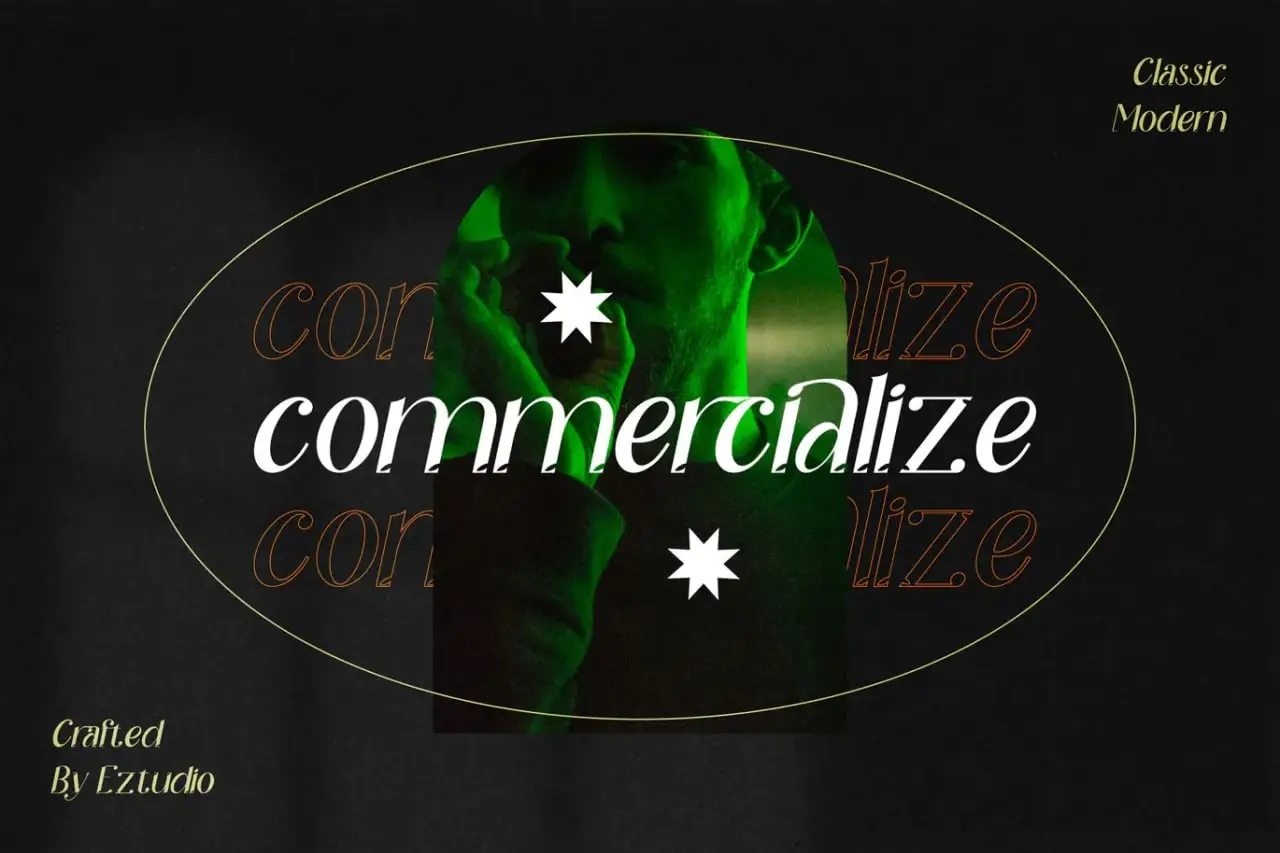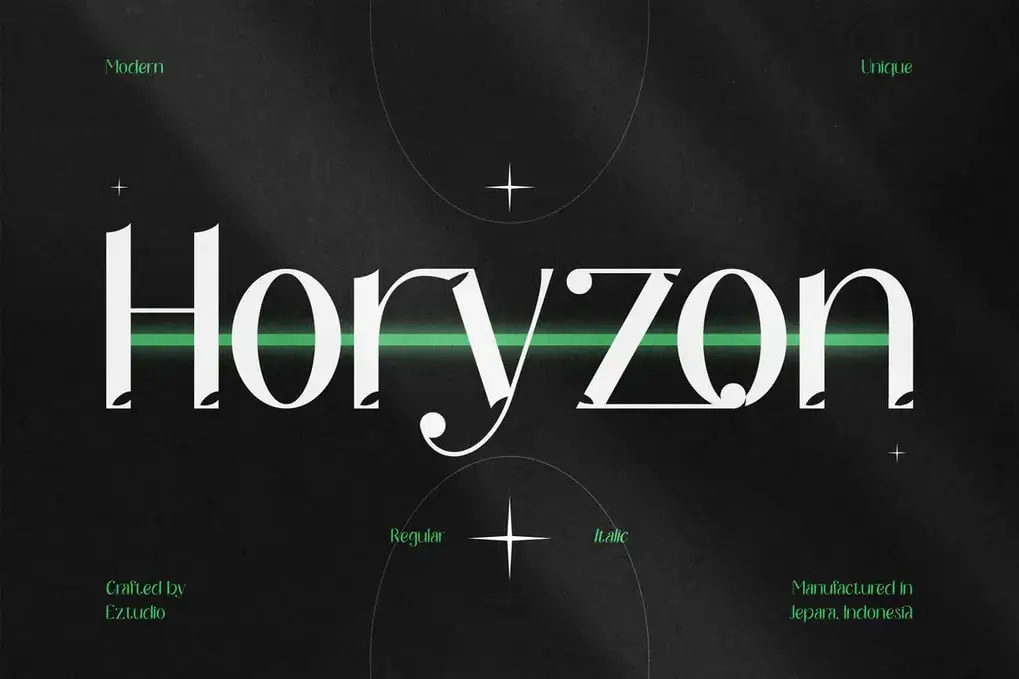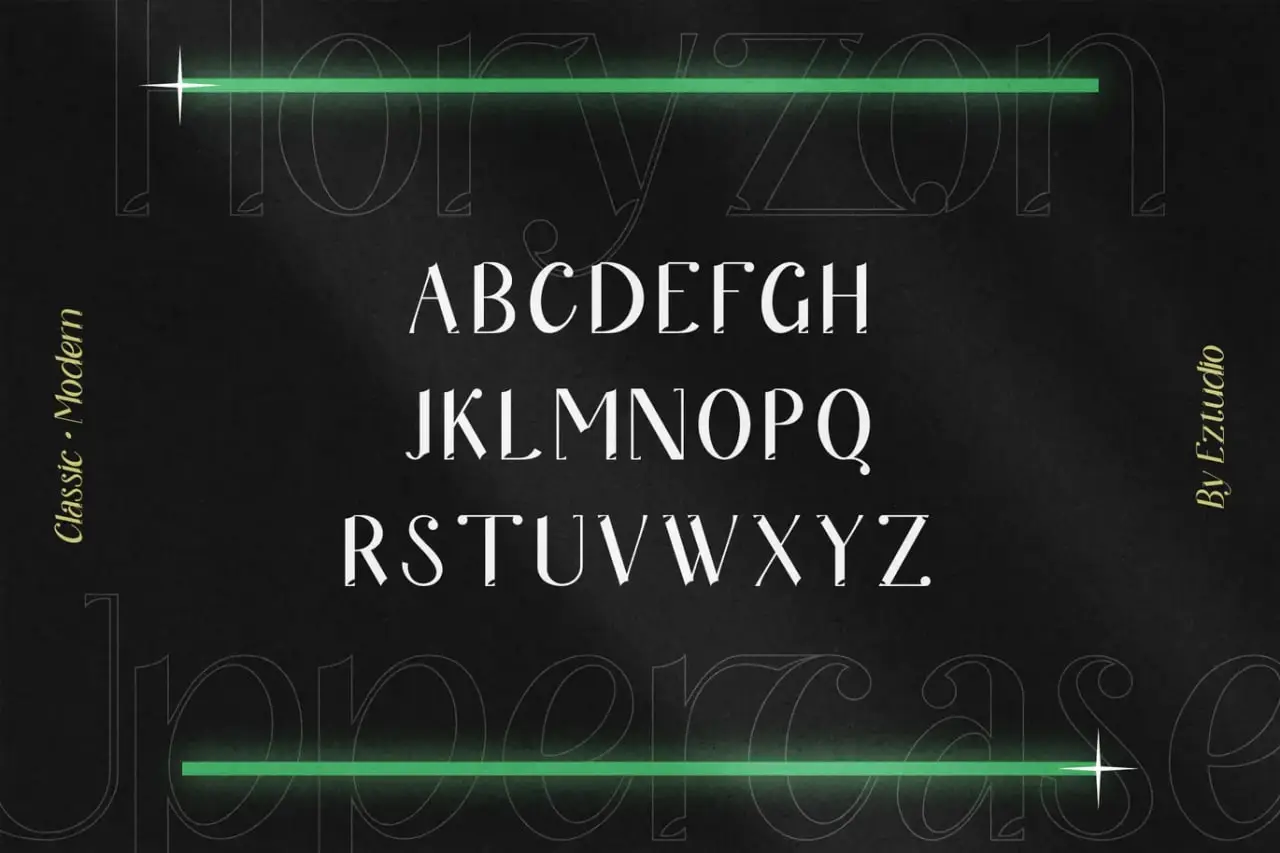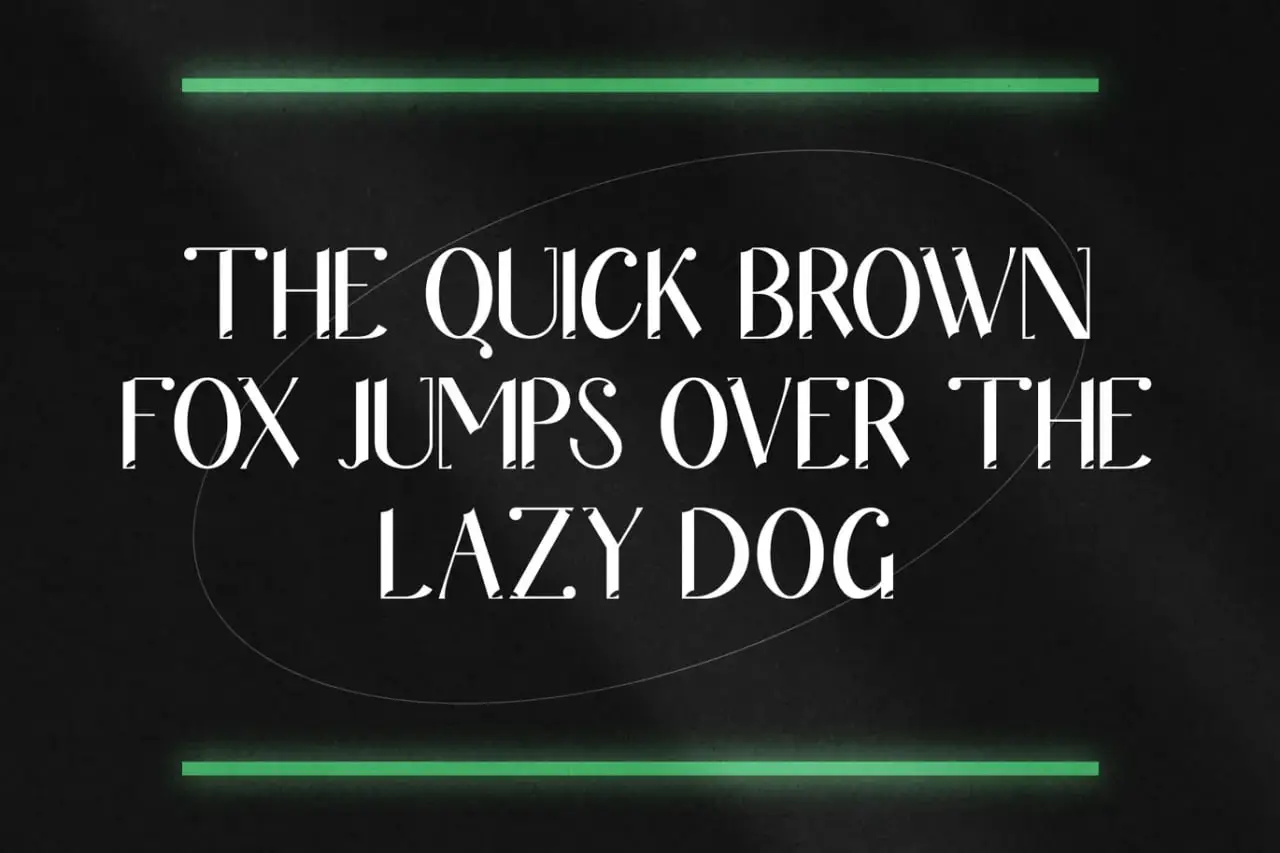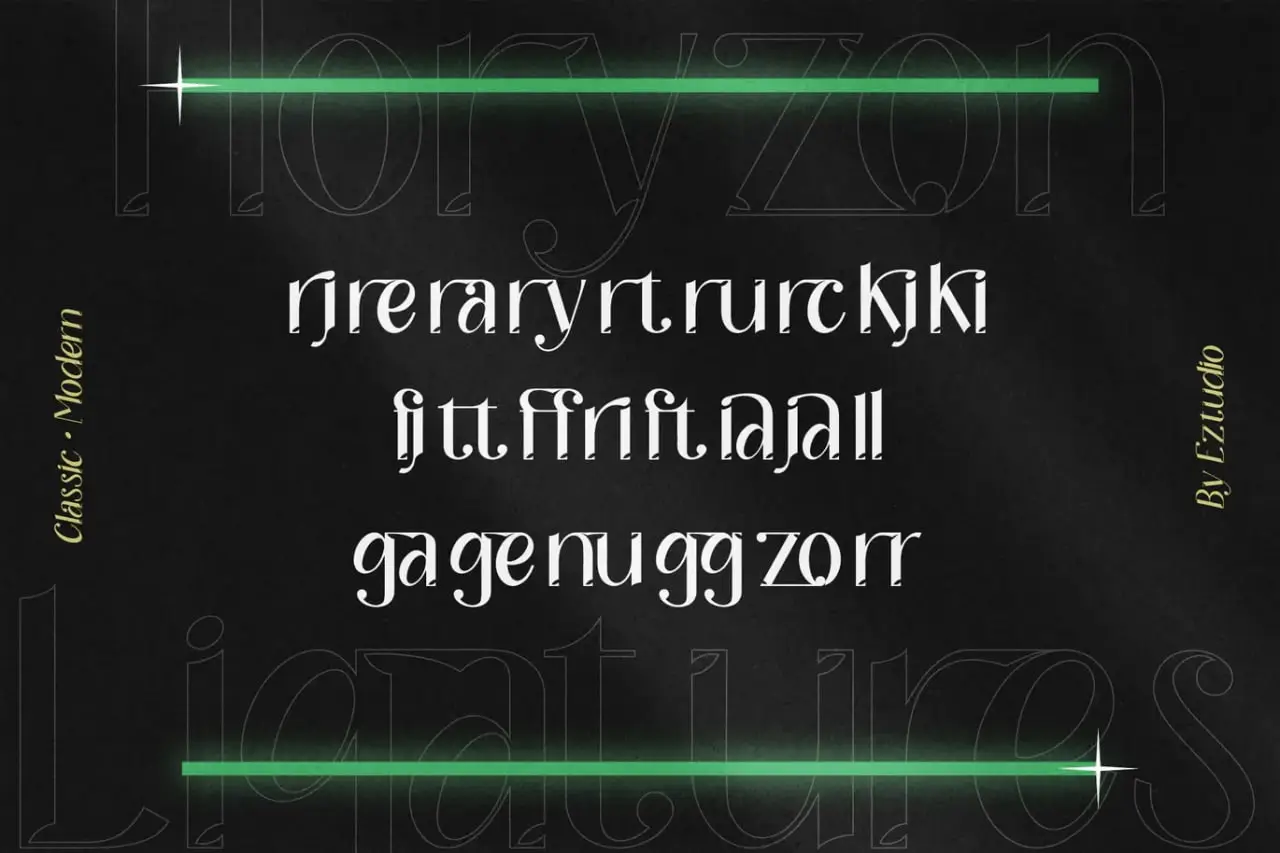
Modern And Unique Font-Horyzon
The Horyzon font is a modern and unique typeface designed to make your projects stand out. With its clean lines and contemporary aesthetic, this font is perfect for a variety of applications, including branding, logos, web design, and print materials.
• Stylish uppercase and lowercase letters
• Supports a wide range of languages
• Easy to read at both large and small sizes
• Ideal for modern branding projects
• Great for eye-catching headlines and promotional materials
• Use in both digital and print formats for maximum impact